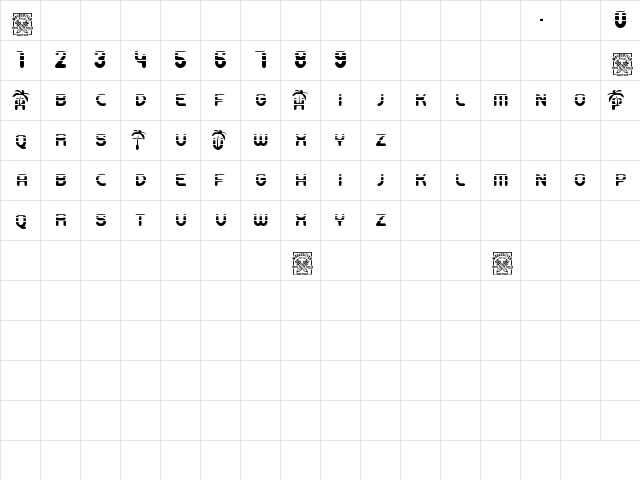
Vacaciones Regular
| Designer | Woodcutter Manero |
Design Context for Vacaciones Typeface
Vacaciones is a composed and adaptable typeface that performs quietly and consistently across a wide range of design contexts.